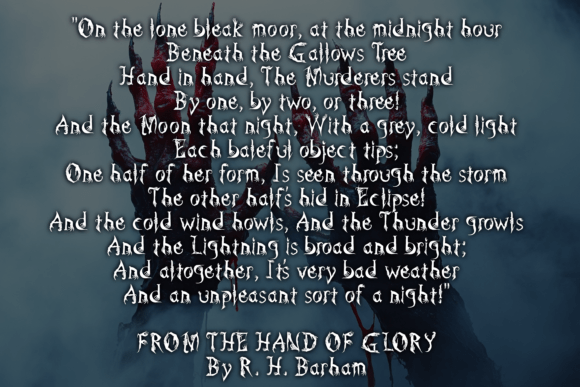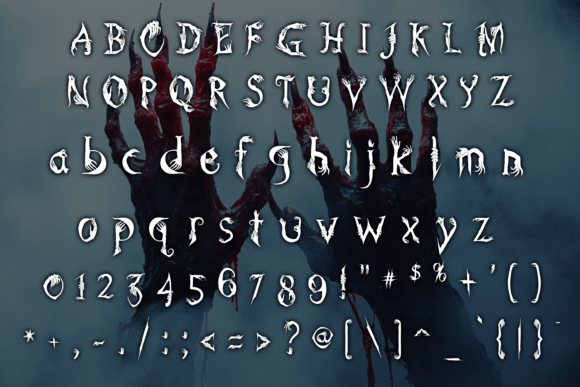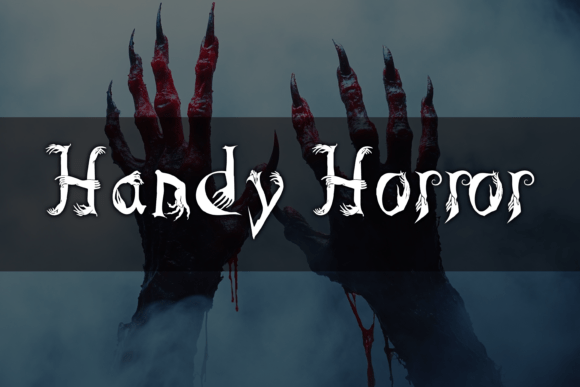
Introduction to Handy Horror Font
Unleash the terror with Handy Horror, a spine-chilling font that brings the eerie essence of horror to your designs.
Featuring claw-like strokes and jagged edges, this unique typeface is perfect for Halloween projects, haunted house posters, creepy invitations, gothic branding, spooky merchandise, and eerie book covers Handy Horror is designed to send shivers down the spine while maintaining excellent readability, making it an essential addition for horror enthusiasts and designers looking to add a sinister touch to their work.
Key Features of Handy Horror Font
Why Choose Handy Horror Font?
Handy Horror Font offers exceptional quality and versatility, making it a valuable addition to your design toolkit. Whether you’re creating for personal projects or commercial use, Handy Horror Font delivers professional results.